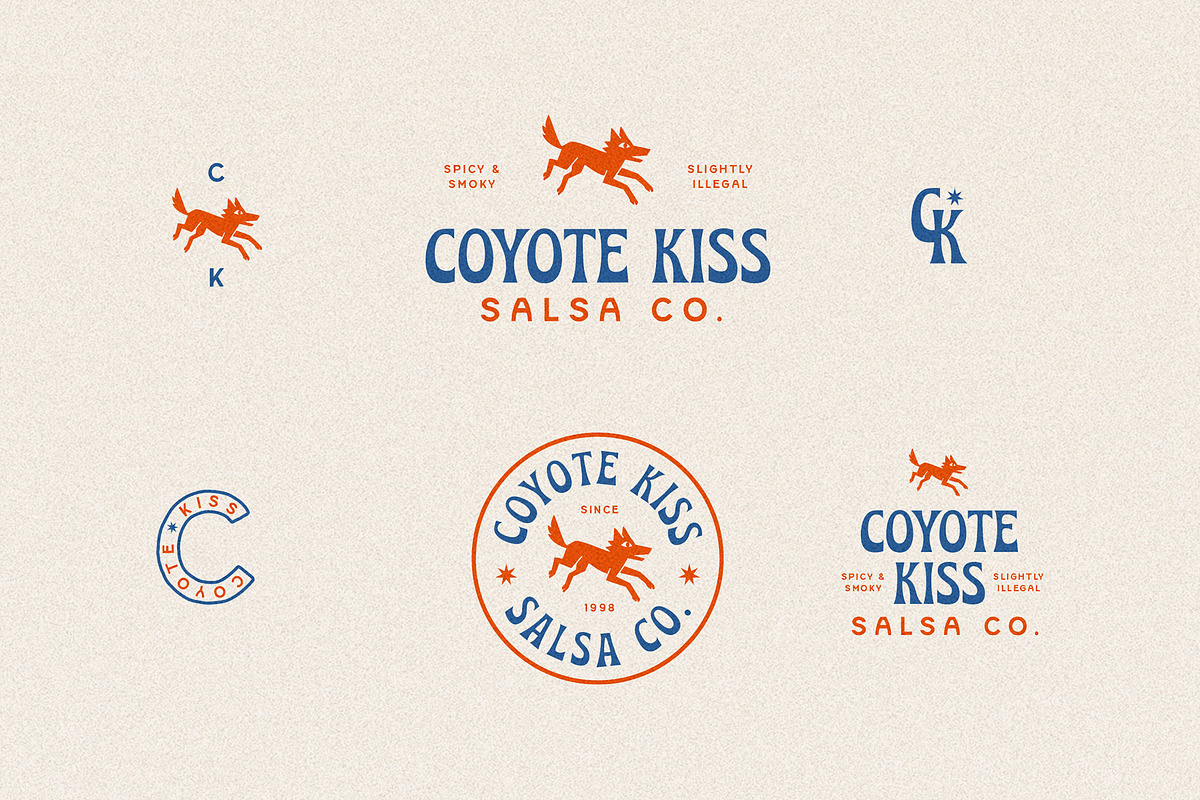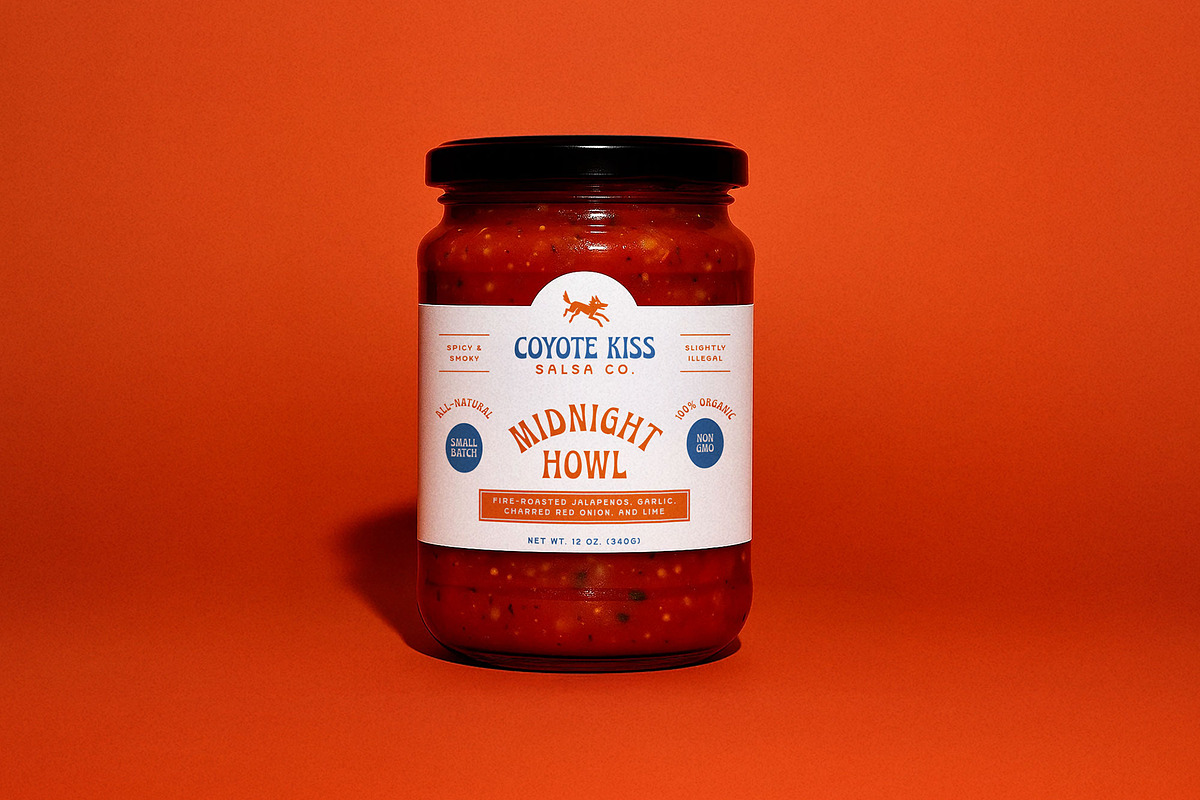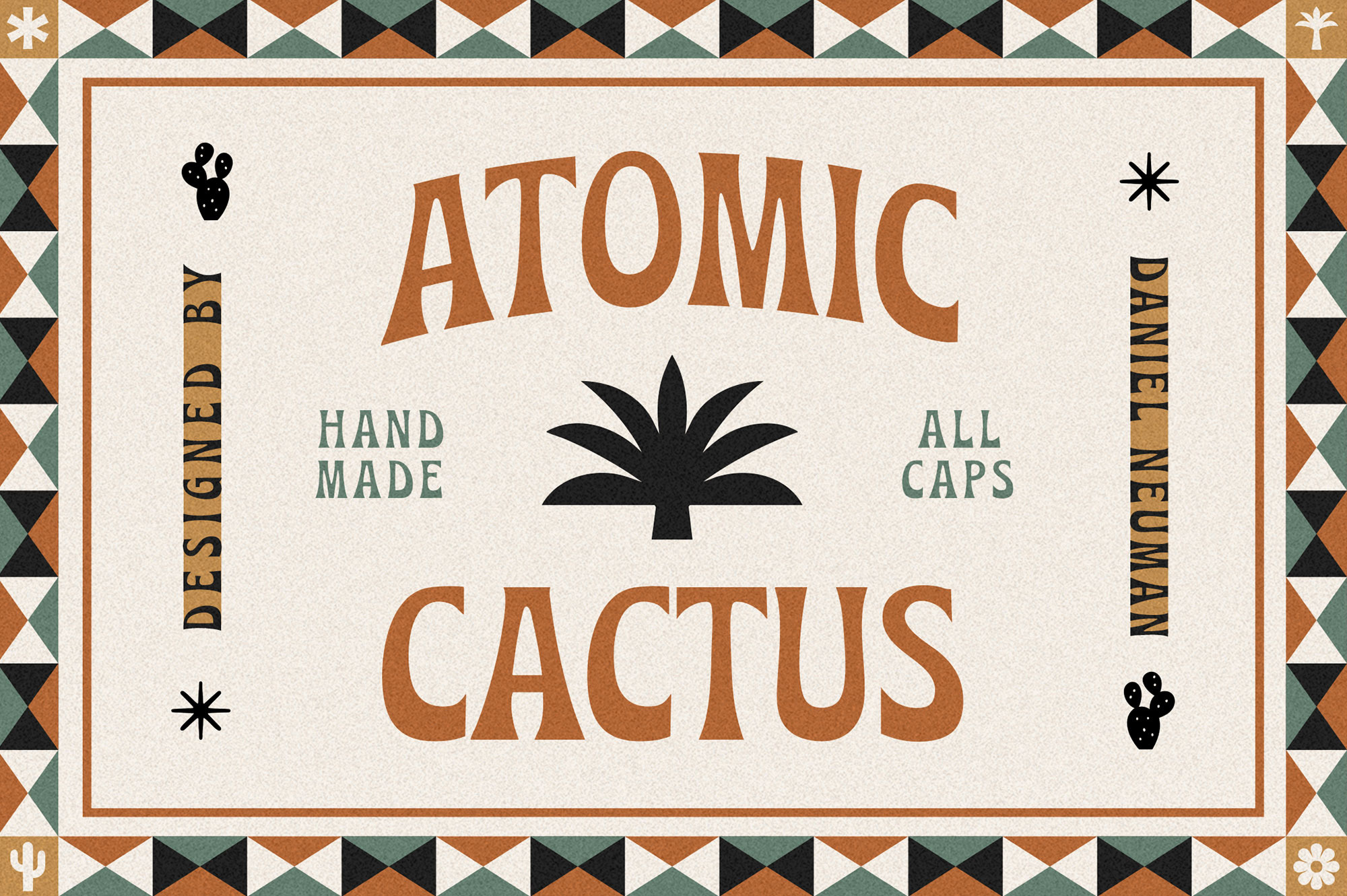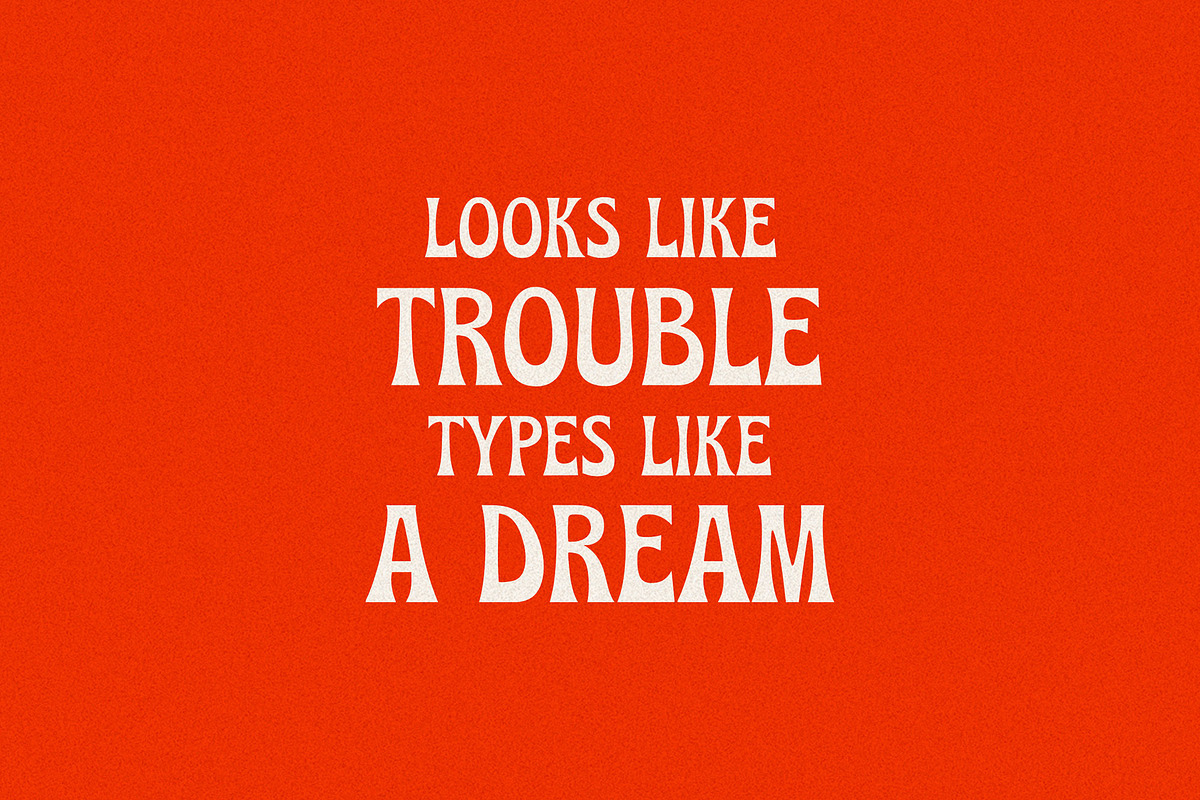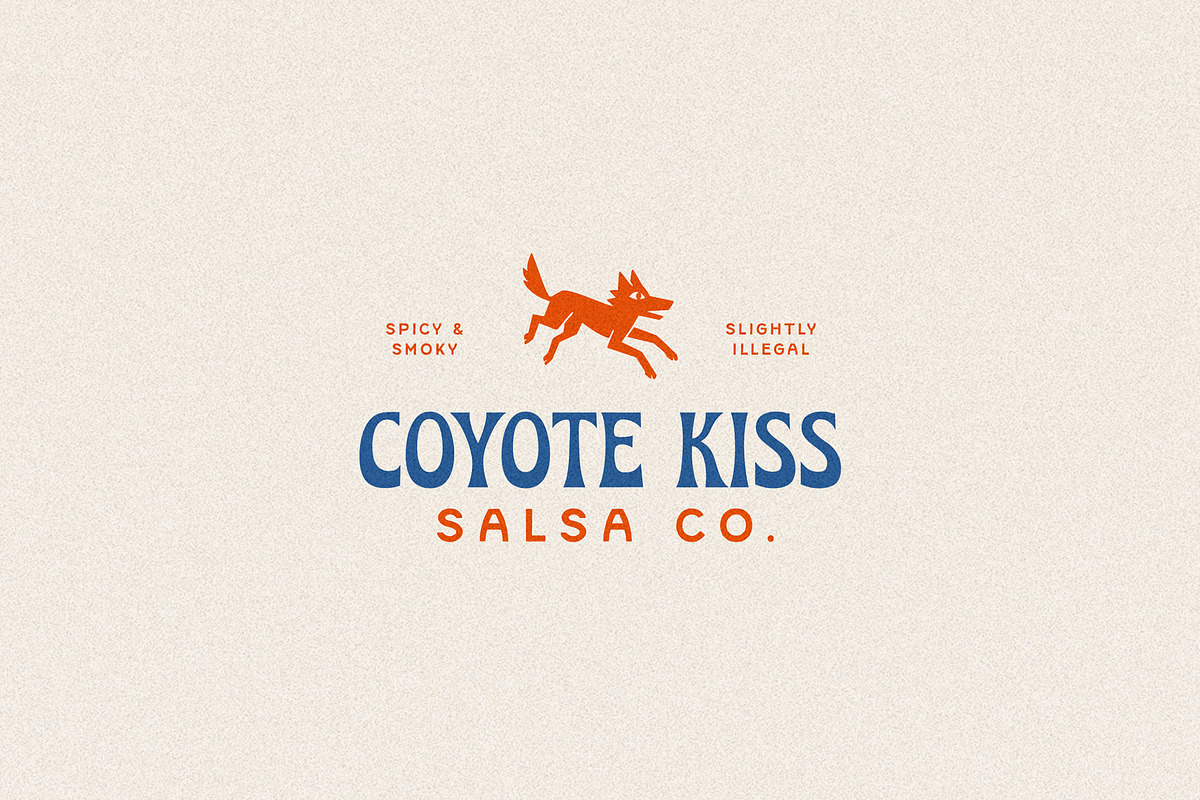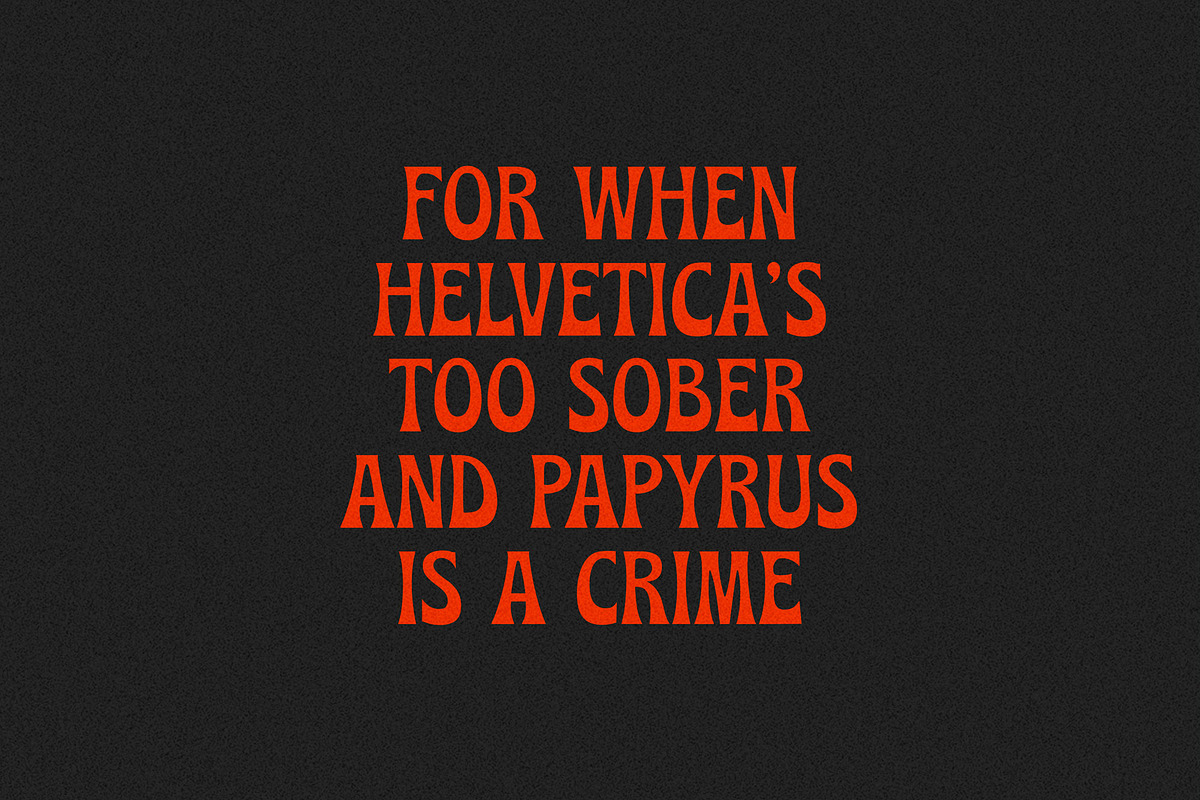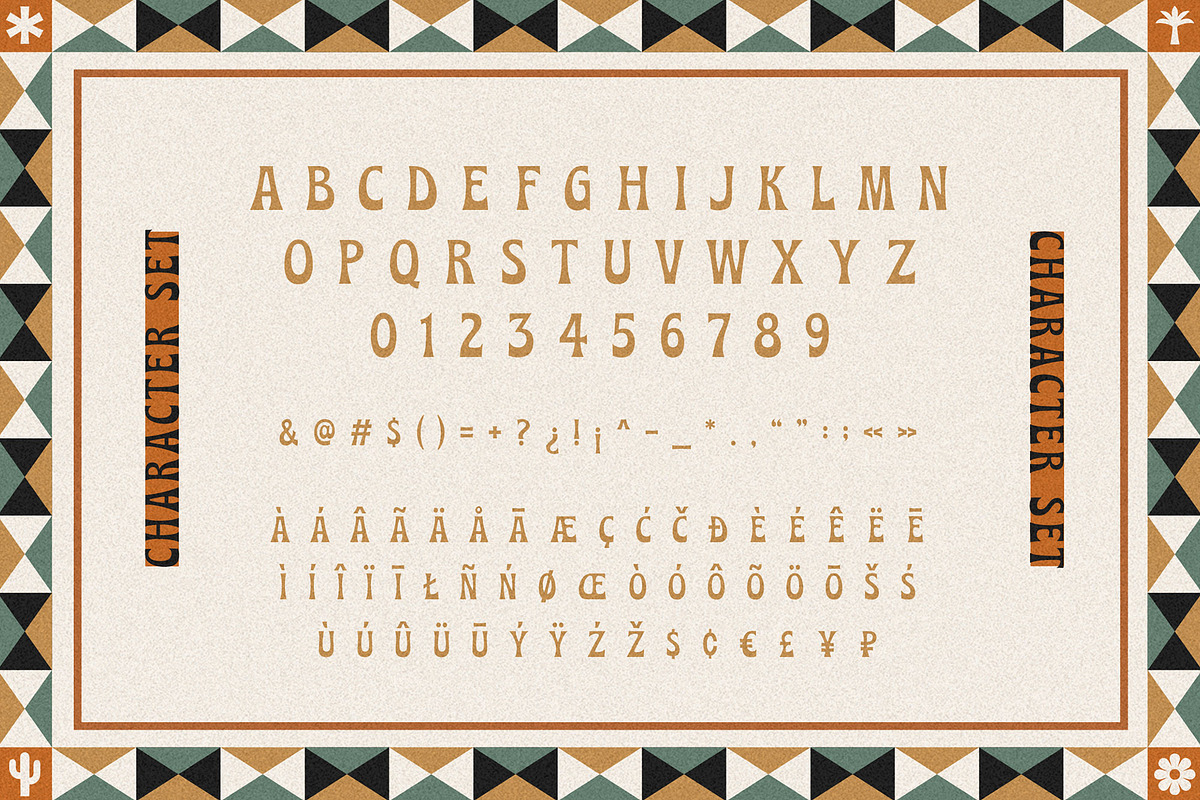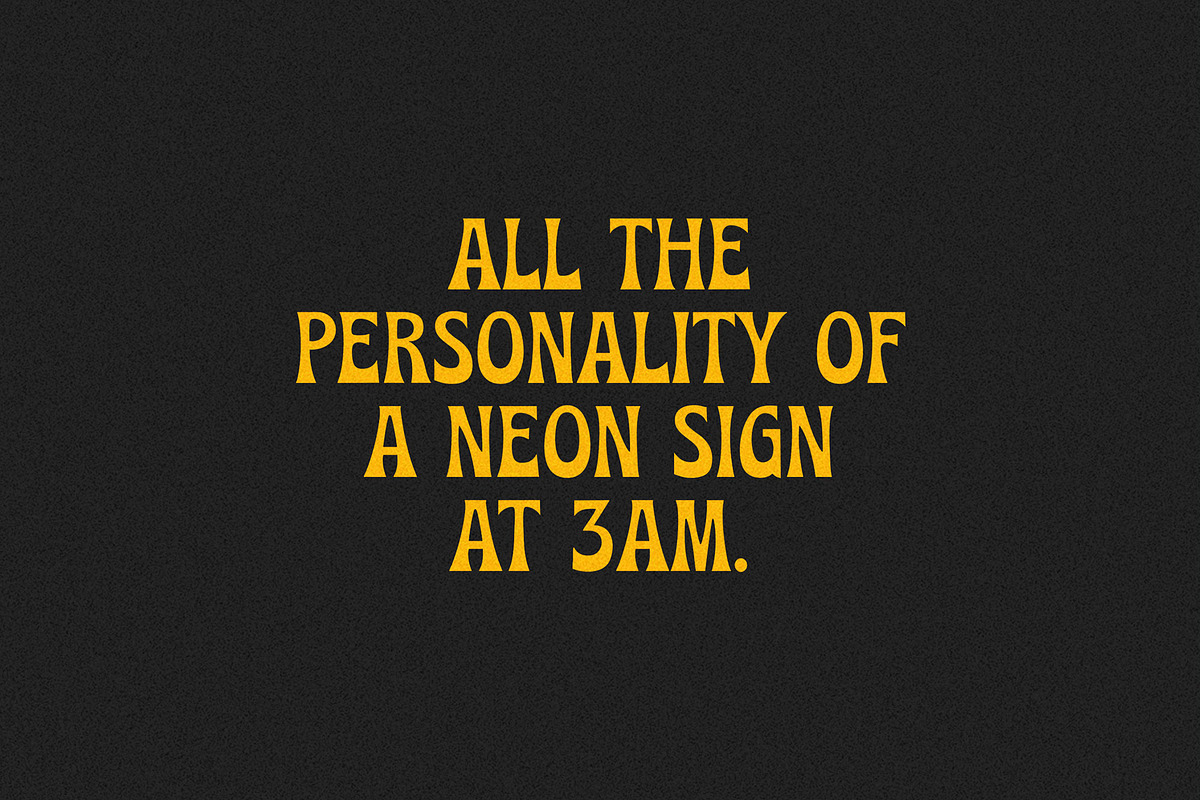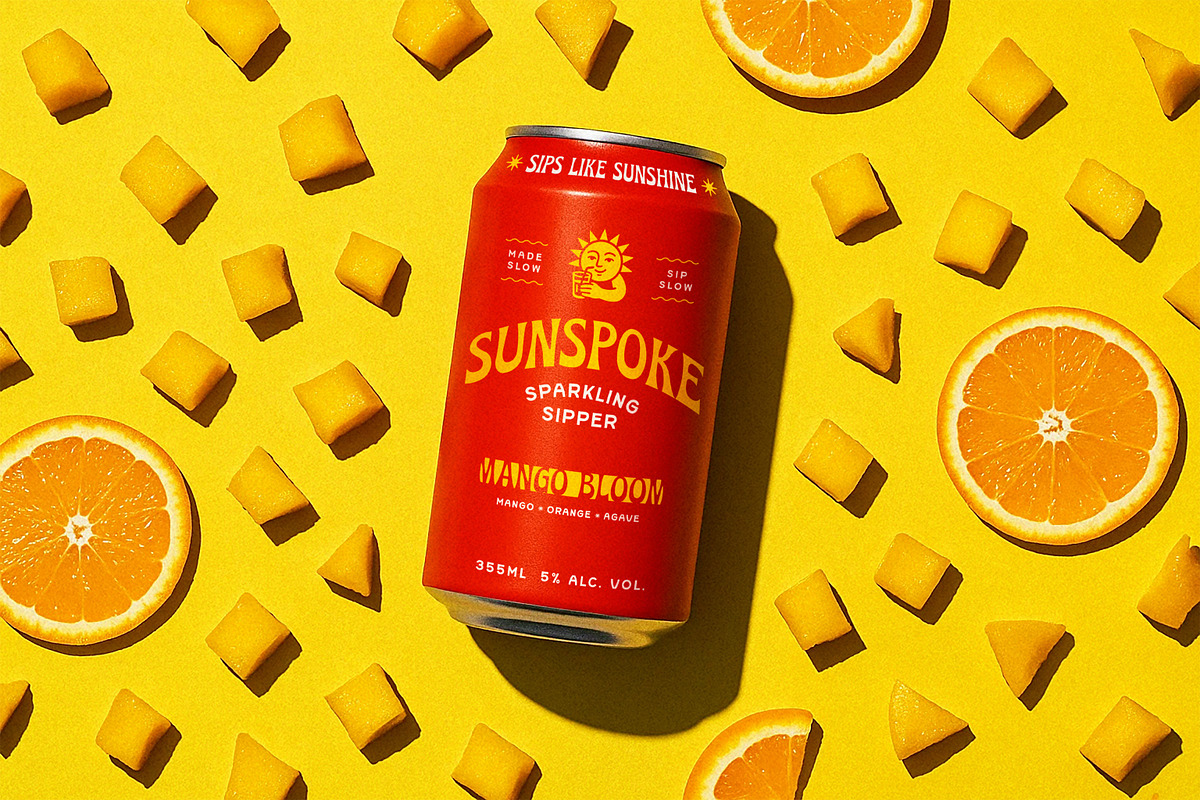
Atomic Cactus | Display Typeface
Meet Atomic Cactus, a bold and quirky all-caps display font that blends retro charm with a rugged Southwestern spirit.
This all-caps display font is a love letter to sun-bleached road signs, neon motel signs, and the unmistakable glow of a 24-hour diner. Every letter has a lively, imperfect charm that feels both rebellious and nostalgic.
Contains upper-case A-Z, numbers 0-9 and basic punctuation. This font fully supports around 70 languages.